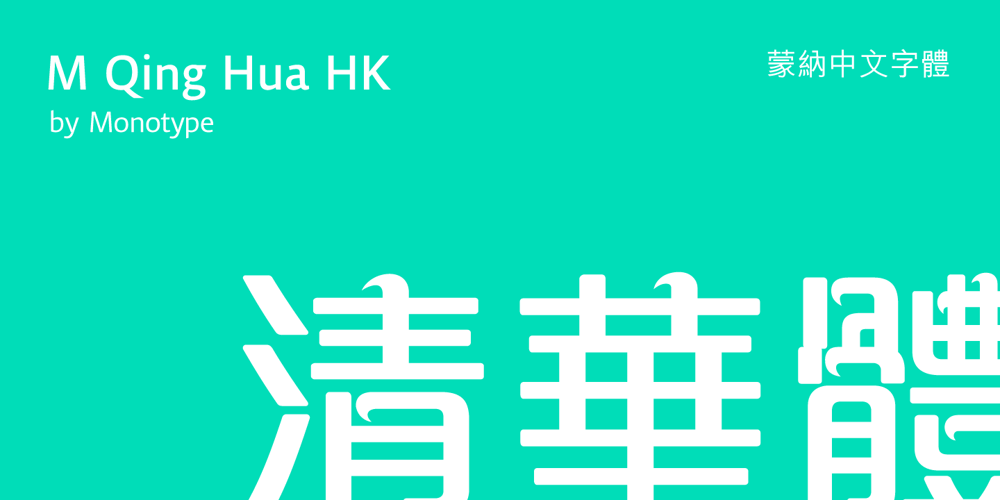
M Qing Hua HK
M Qing Hua HK font
M Qing Hua HK Font Family was designed by Monotype HK Design and published by Monotype HK. M Qing Hua HK contains 3 styles and family package options. Among the world of Chinese commercial fonts, M Qing Hua has a relatively high flexibility to be used in different areas, for instance, media of advertising. Its design concept is to combine the neatness of Hei typeface with the roundedness of Yuen typeface. The typeface tries to revitalize the boring traditional design by adding energy, simplicity and modernness to it, which could be shown in the small features in strokes like delicate and curvy finishings. More is the appropriate mix of masculinity and femininity, so as to enable a more effective communication, stronger visual attractiveness and higher affections.